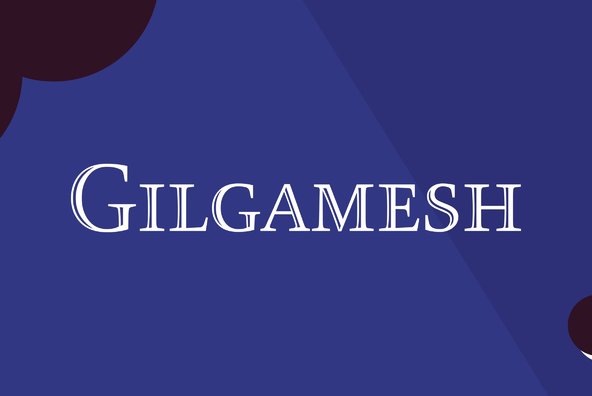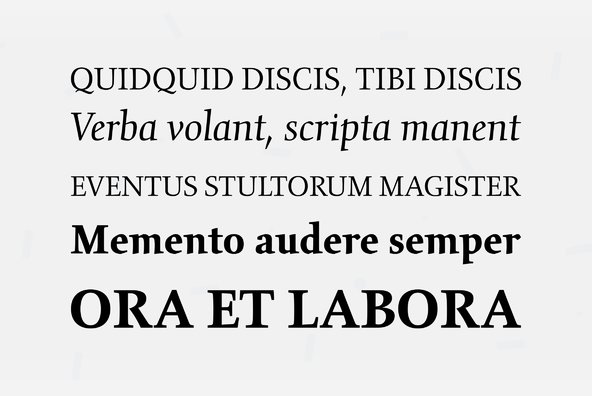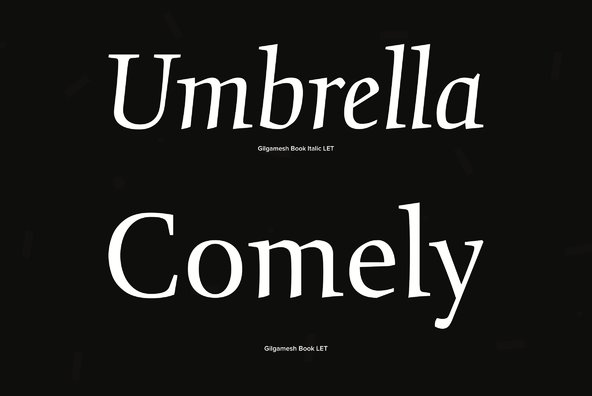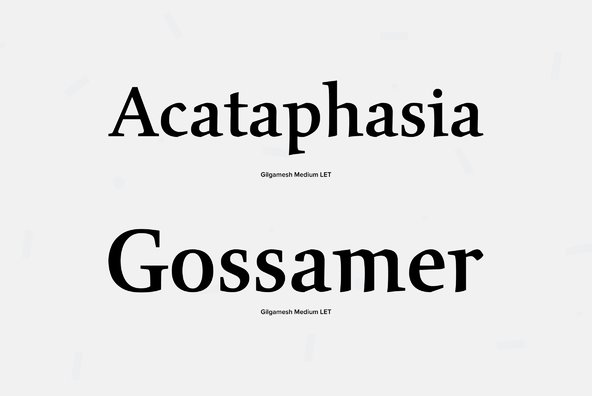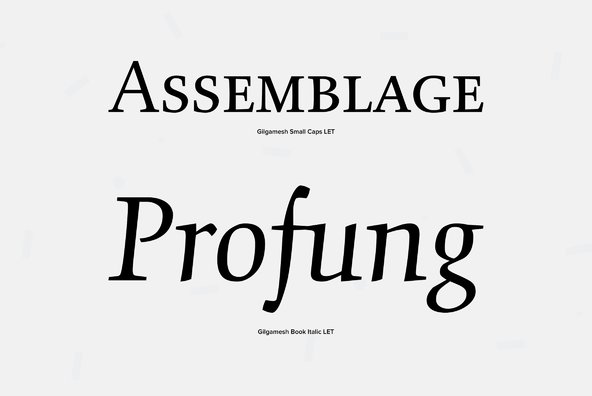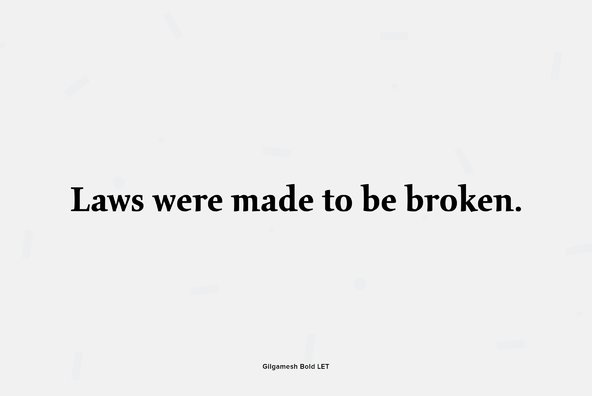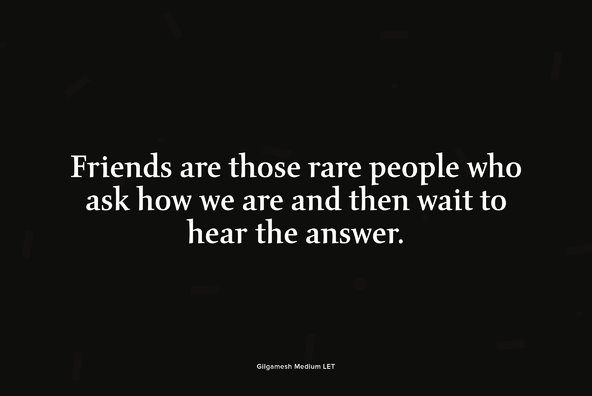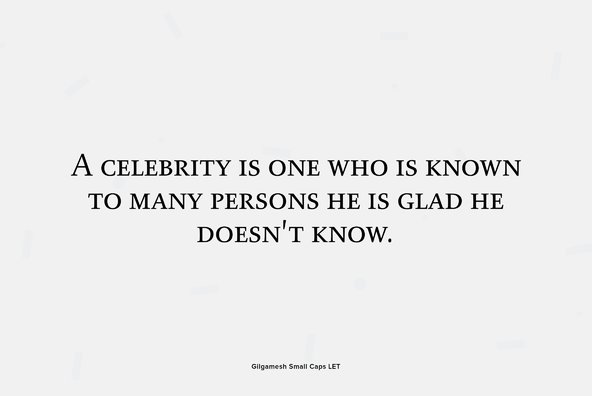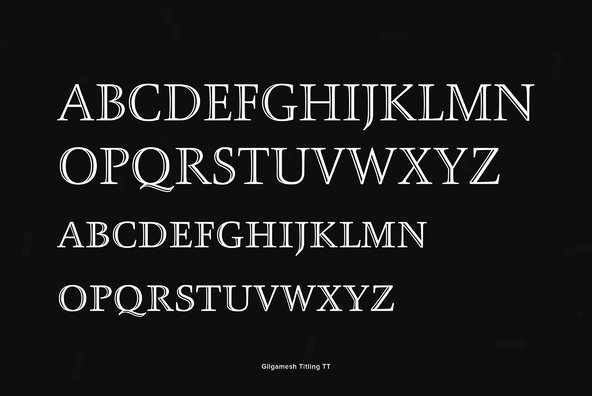
Gilgamesh
Functionality with style is the keynote of Gilgamesh, the latest text typeface family from the cultured hand of British designer, Michael Gills. Based largely on Gills' calligraphic experiments, Gilgamesh offers the discerning typographer everything - slightly narrower-than-normal letterforms for economy of space, a top-left, bottom-right serif formation on the lowercase for close letterspacing in larger point sizes, and a crisp, angular italic that will give emphasis to your typographic design. Named after a poem from Middle Eastern mythology, 'The Epic of Gilgamesh'.